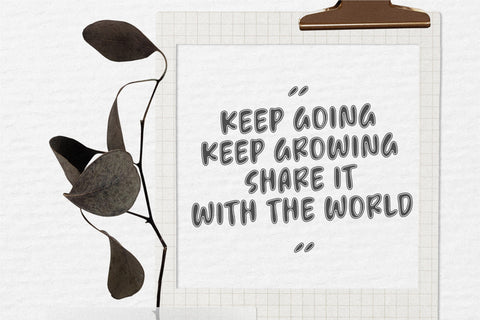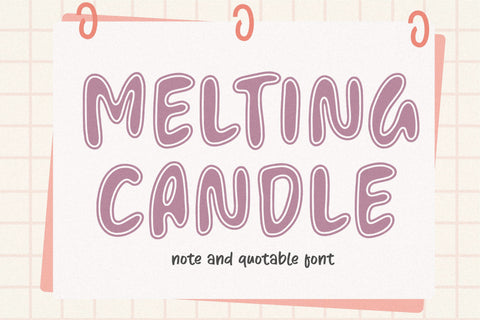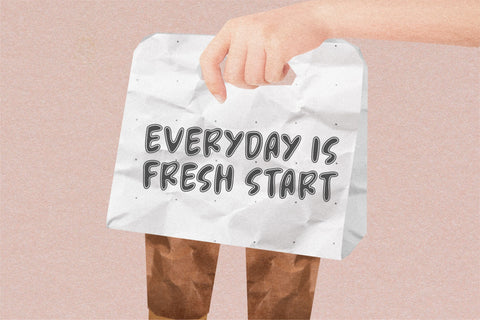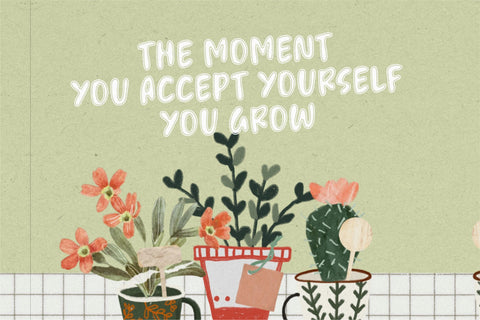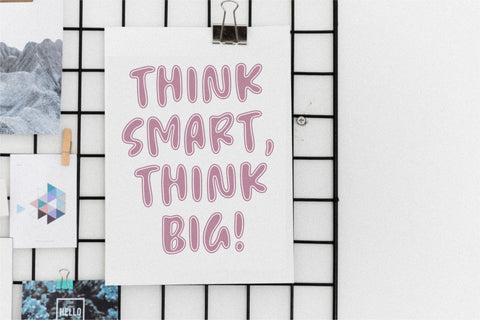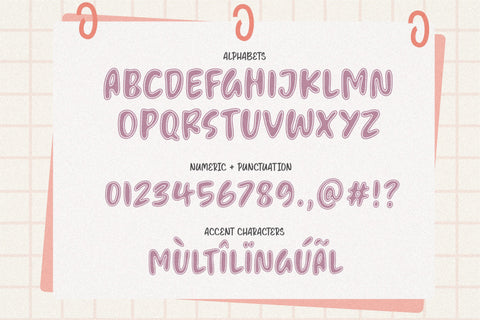
Melting Candle Font
Introducing by Balpirick Studio
Melting Candle is a Note & Quotable Font - a delightful and endearing typeface that combines the charm of handwritten style with captivating outlines.
This cute and lovable font is perfect for adding a touch of whimsy and playfulness to your designs.
Melting Candle font is a versatile option for various design projects, such as greeting cards, invitations, children's books, and more.